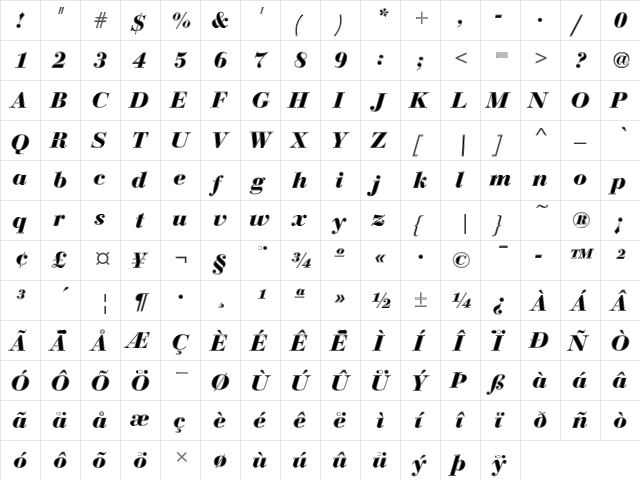
Bauer Bodoni D In1 Regular Font Preview
Bauer Bodoni D In1 Regular
Bauer Bodoni D In1 Regular Font Details
Design Context for Bauer Bodoni D In1 Typeface
Bauer Bodoni D In1 takes a measured approach to typography — its balanced proportions and neutral character make it a reliable workhorse for both digital and print work.